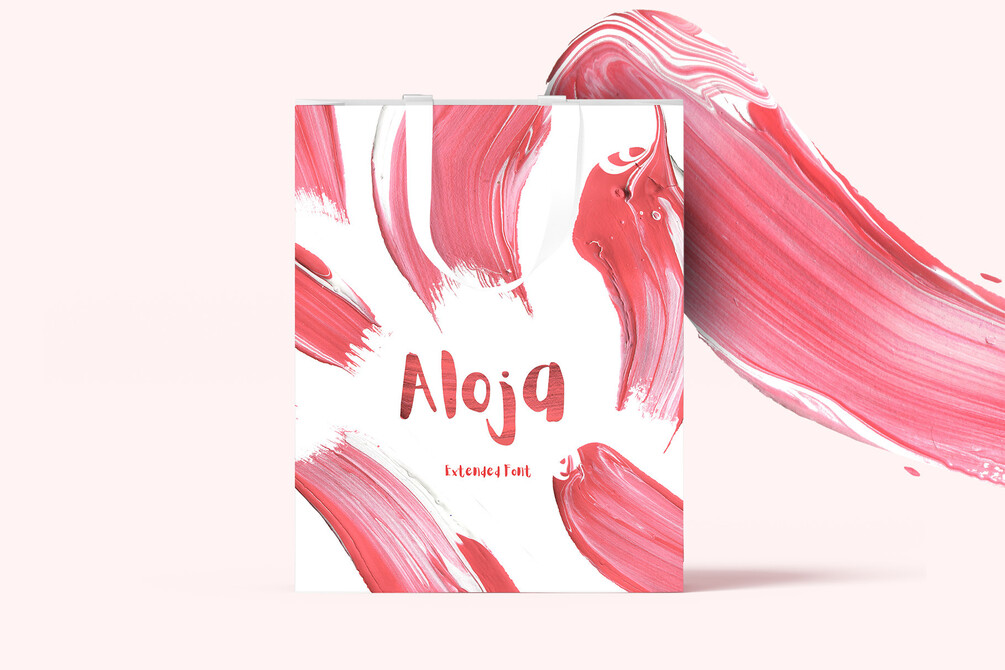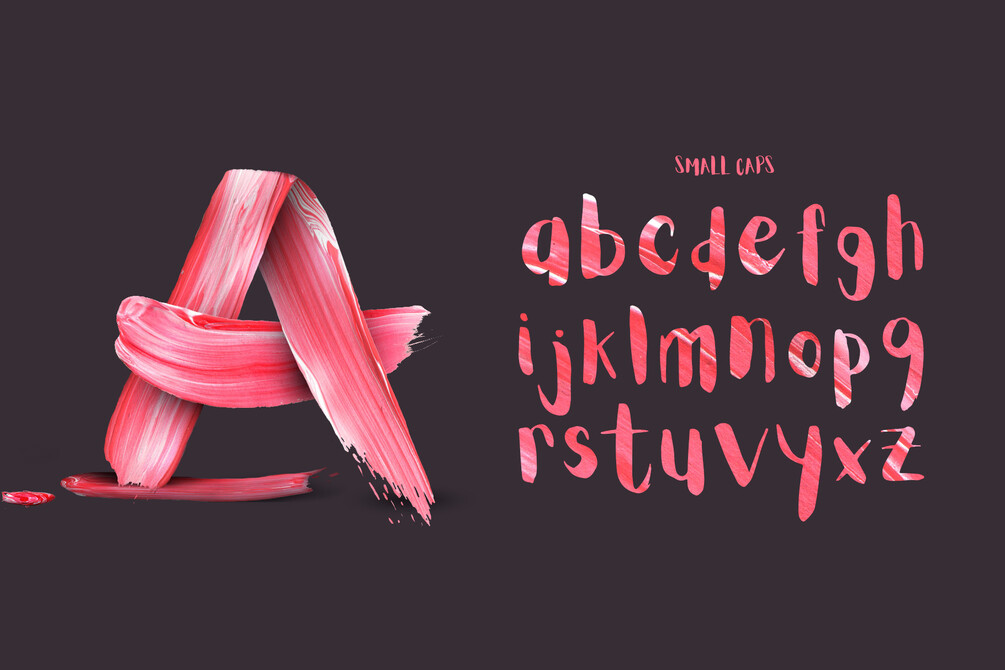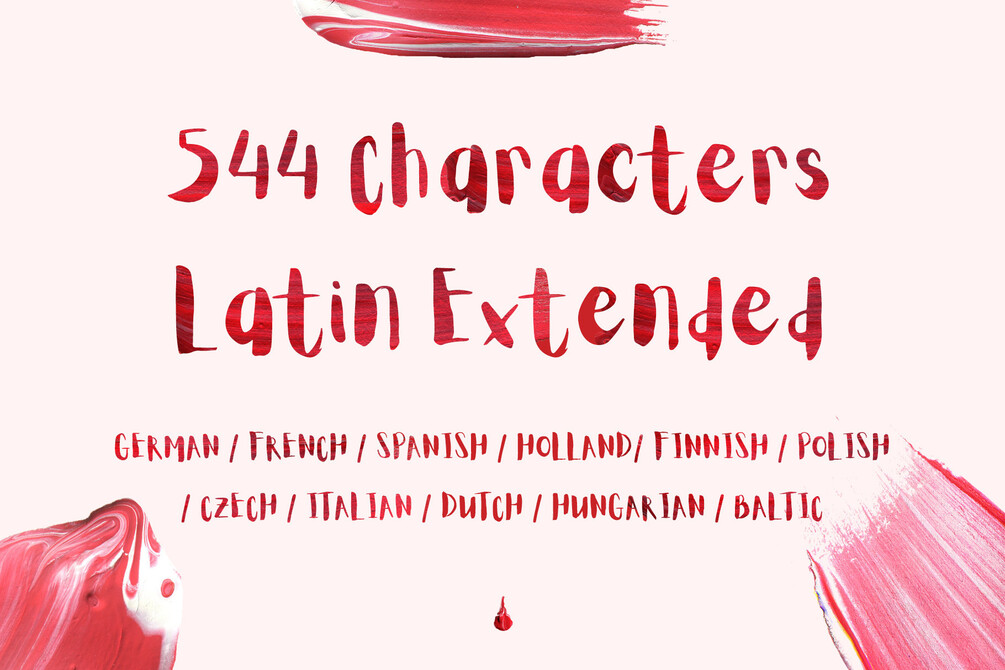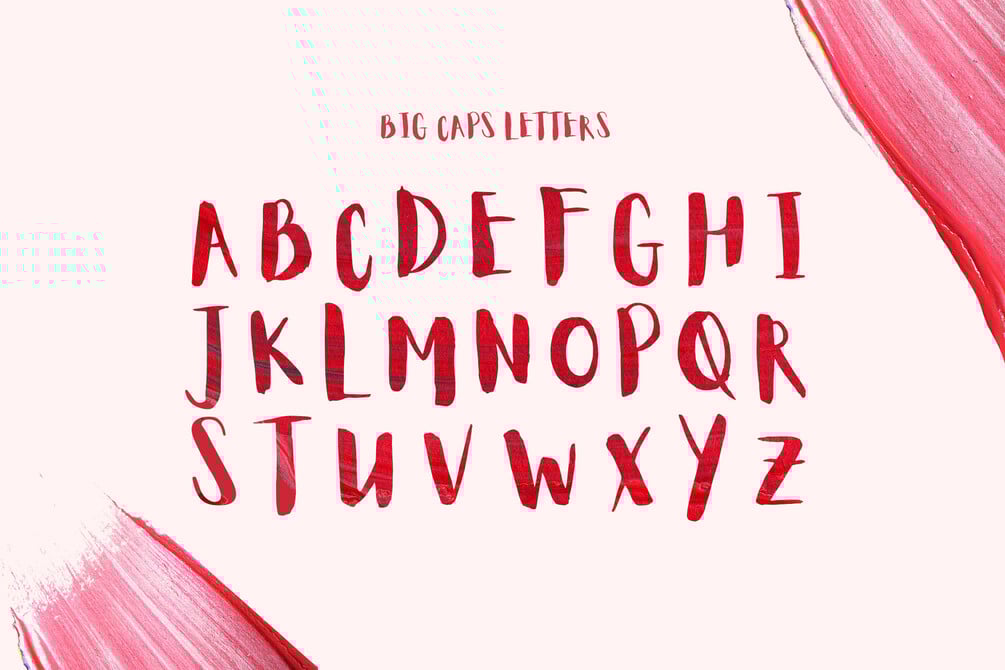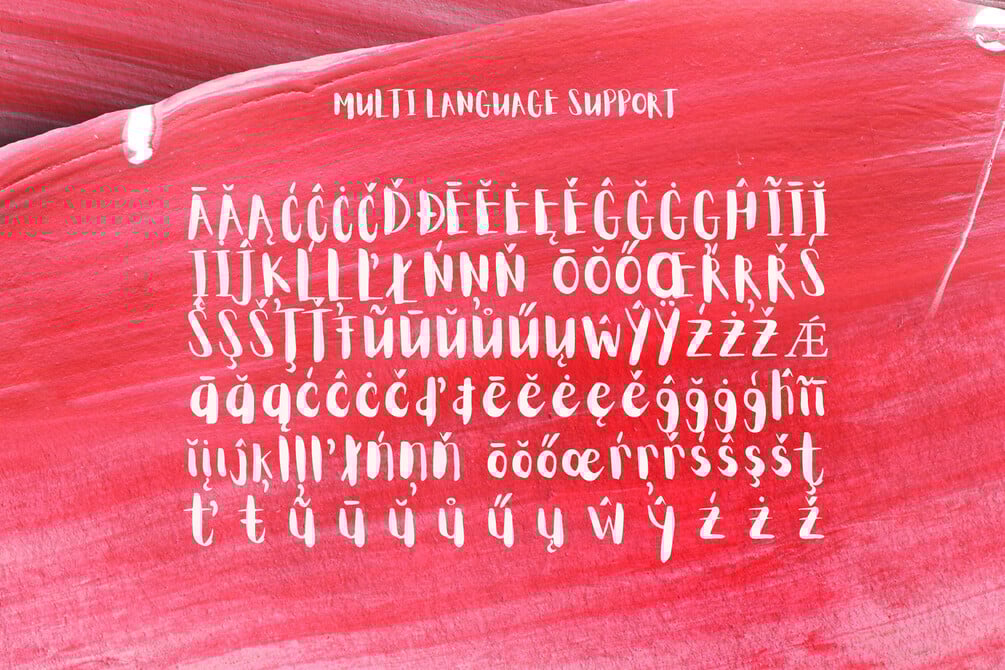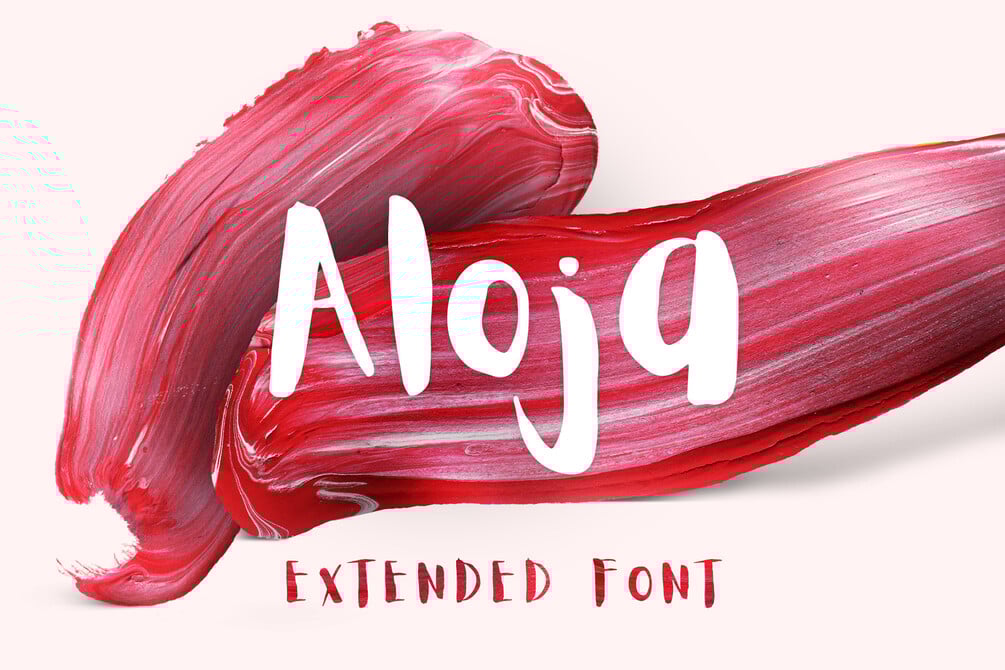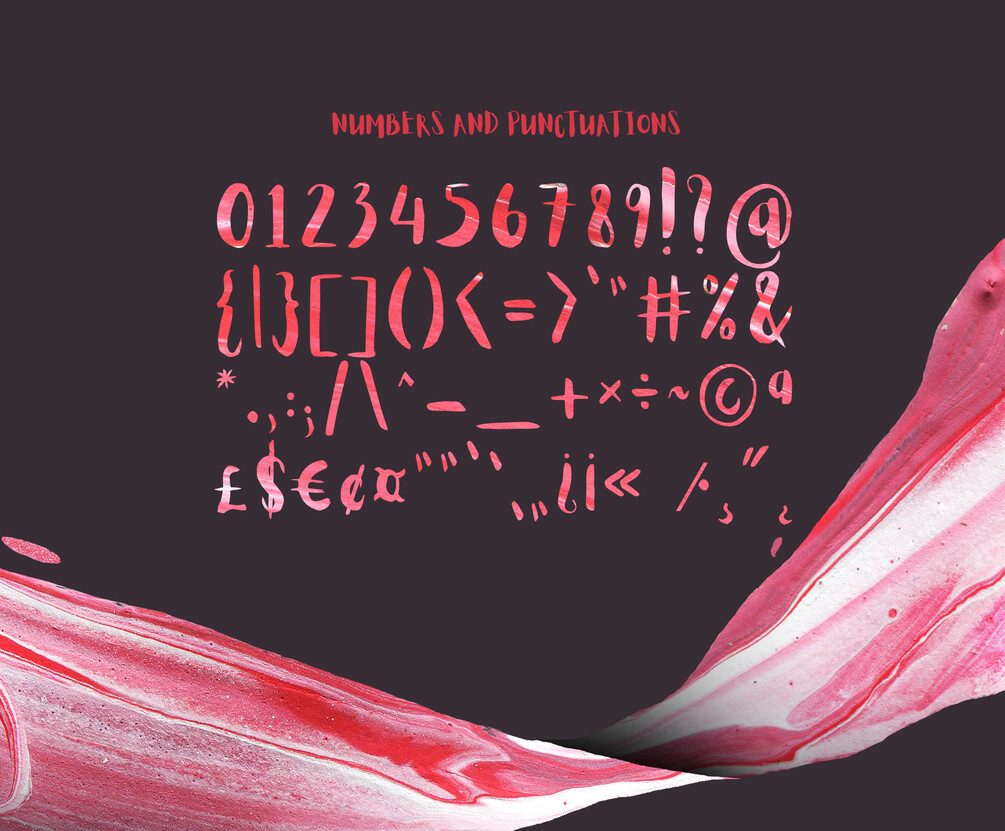
ALOJA Extended Handwriting Font
Aloja Extended Brush Font comes with upgraded glyphs, Multi languageĀ support, and latin extended character base, with all small letters included. 550 Characters are included. Every single letter has been hand drawn with a thin water brush on acrylic paper, this making the typeface unique. This is the extended version of the Aloja Free font.